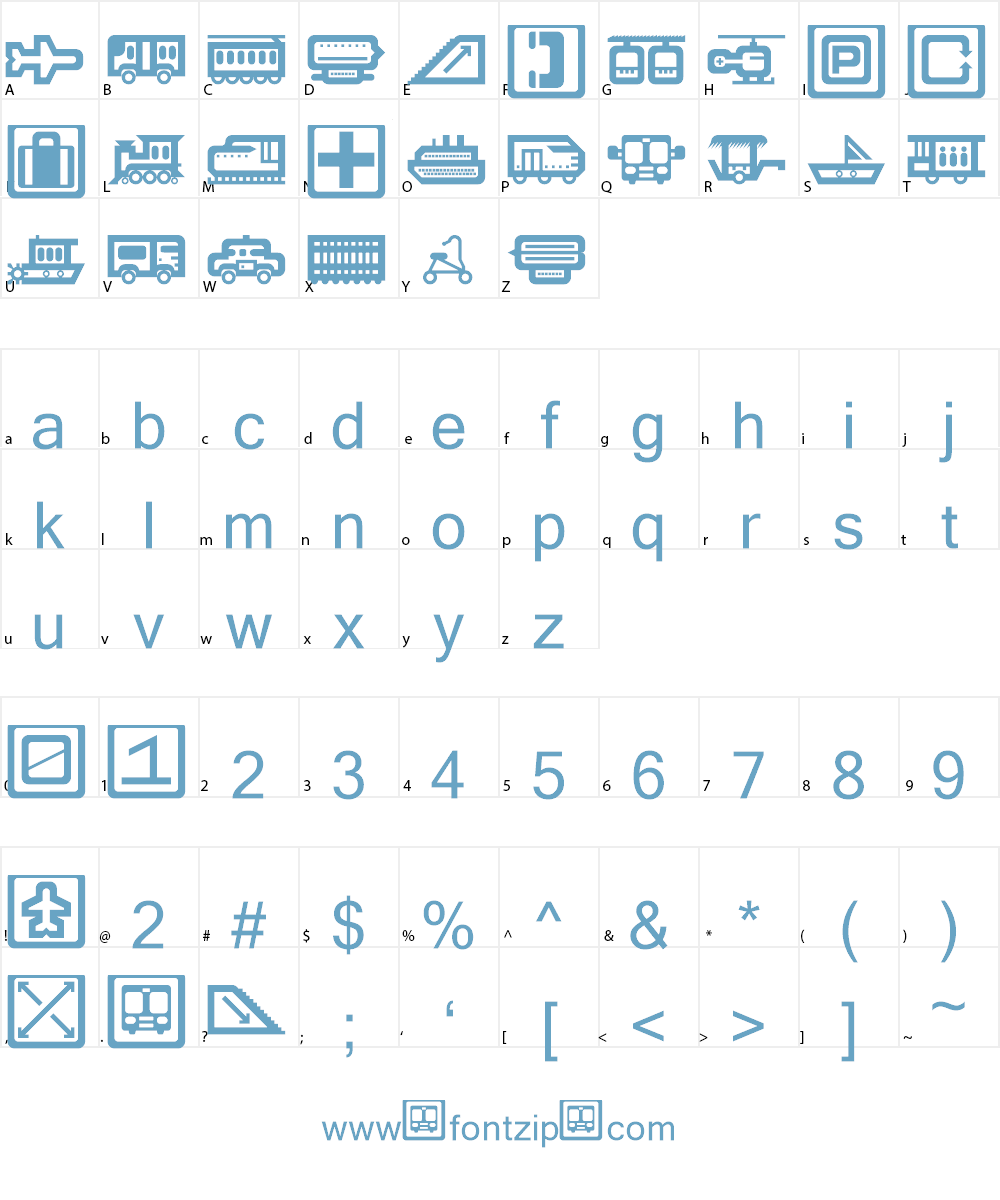
Public transport- and travel-related icons. I made this font for a contest in 2018. It doesn't have too much art in it, but there's a lot of variety. I hope it's useful to someone!
A legend is below. There's a few others scattered throughout the font, as well.
A - Airplane
B - Bus
C - Cable Car
D - Dirigible
E - Escalator
F - "Phone" Sign
G - Gondola
H - Helicopter
I - "Parking" Sign
J - "Lost & Found" Sign
K - "Luggage Claim" Sign
L - Locomotive
M - Maglev/Monorail Train
N - "Infirmary" Sign
O - Ocean Liner
P - APC/Armored Car
Q - Bus (front view)
R - Rickshaw
S - Sailboat
T - Trolley
U - Riverboat/Ferry
V - Van
W - Taxi
X - Boxcar
Y - Bike/Scooter
Z - Zeppelin